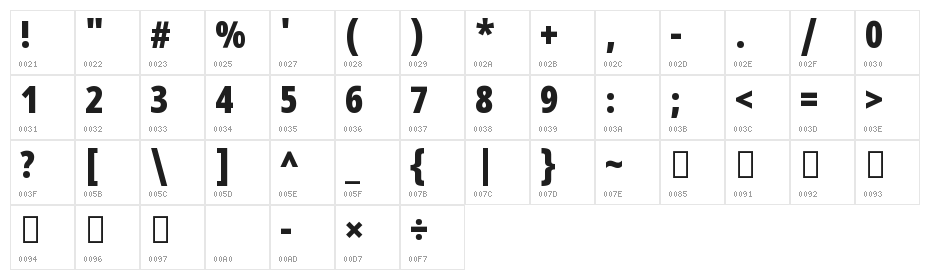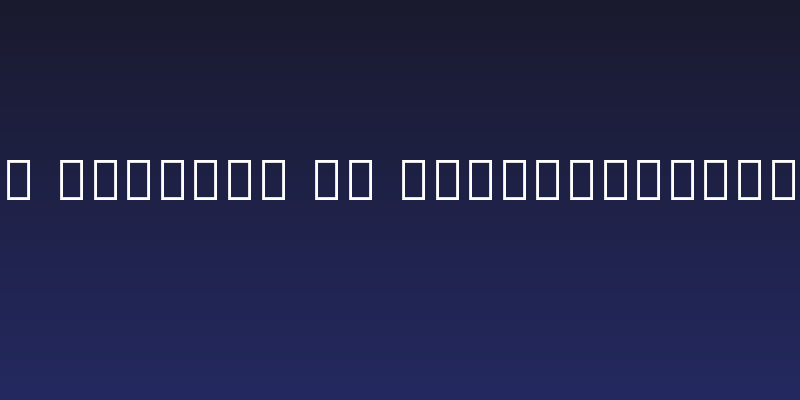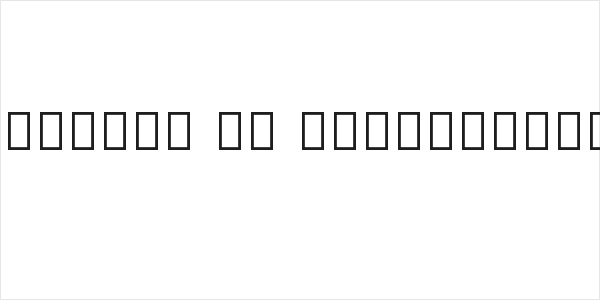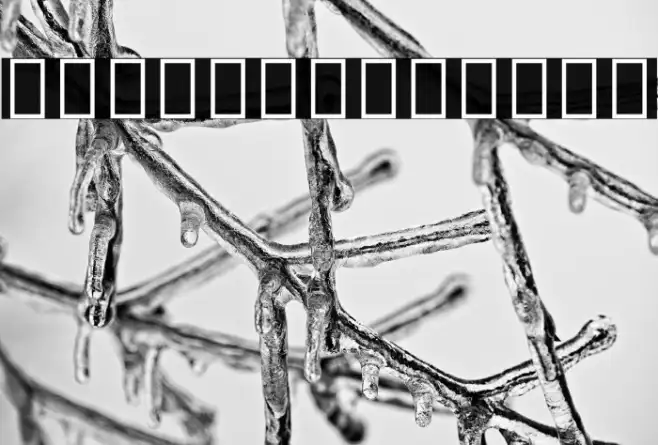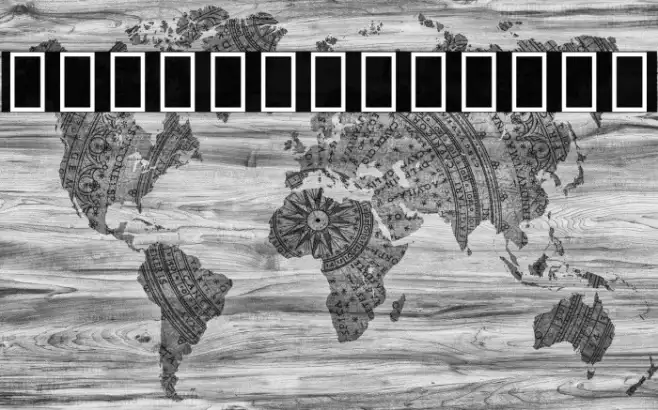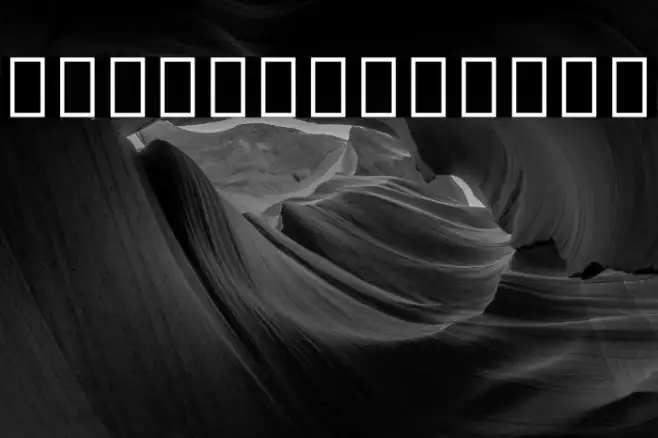
Noto Sans Sinhala UI ExtraCondensed Black Font
Noto Sans Sinhala UI ExtraCondensed Black Description
This font features a bold and impactful design, characterized by its extra-condensed width and heavy weight. The characters are designed with a modern and clean aesthetic, making them highly legible even at smaller sizes. The numbers and special characters maintain the same boldness, ensuring consistency across different uses. The font's strong presence is ideal for making statements and drawing attention, while its simplicity keeps it versatile for various applications.
| Proposed Projects | Ideal for headlines, posters, and branding materials where a strong visual impact is needed. |